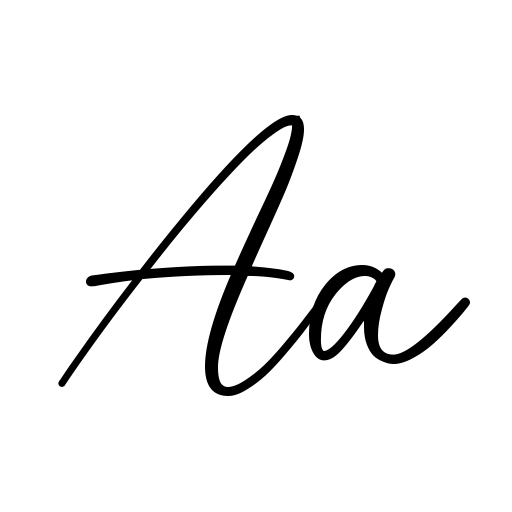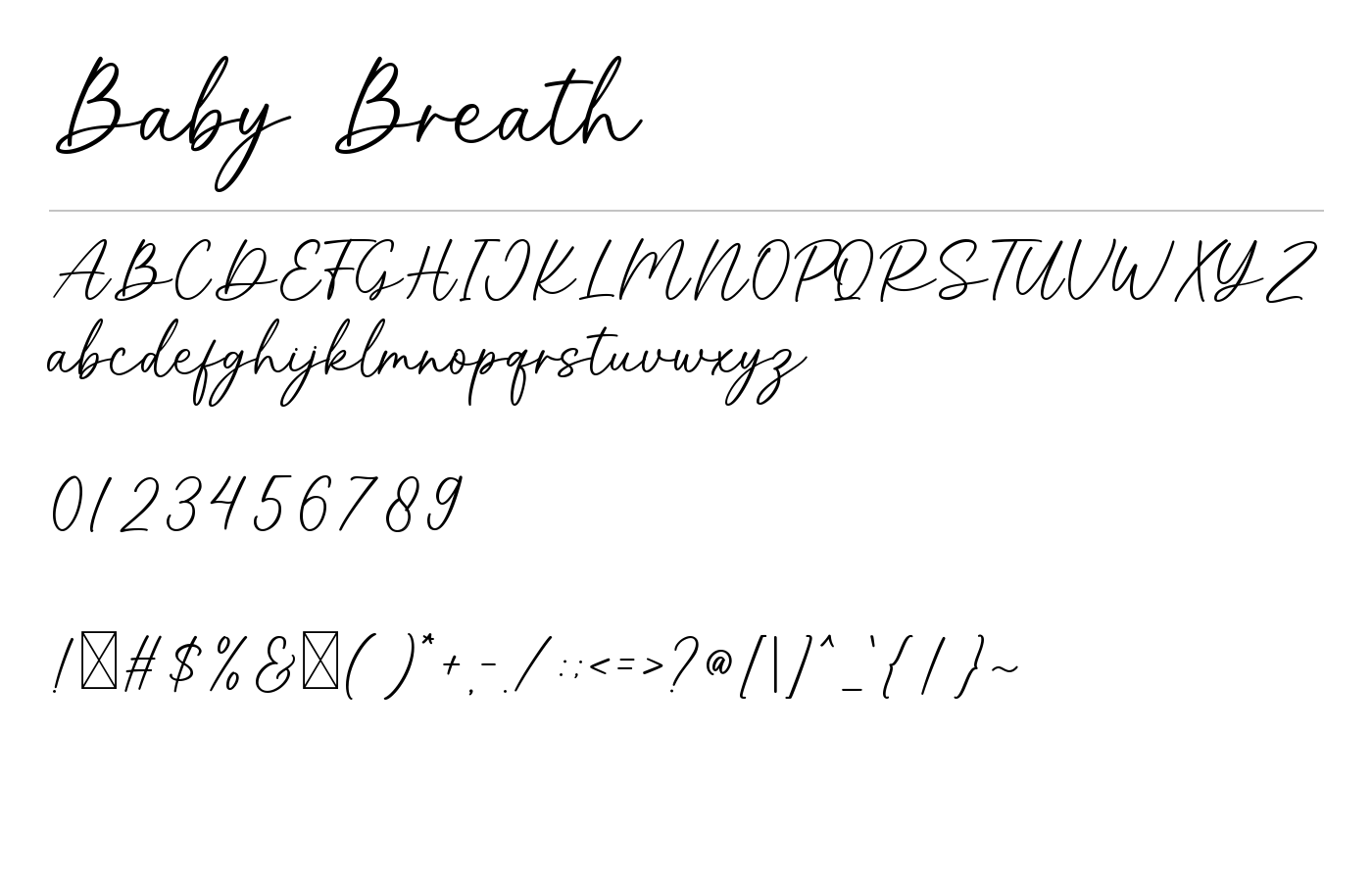
Baby Breath is a delicate, lightweight script font with a handwritten feel, featuring smooth, flowing strokes and a slightly tall x-height that enhances readability while maintaining elegance. Its slender, slightly playful letterforms with clean curves make it ideal for invitations, branding, and any design seeking a soft, personal touch. This font works well for projects that want to convey warmth and approachability with a refined, casual style.
Baby Breath Font
About Baby Breath Font